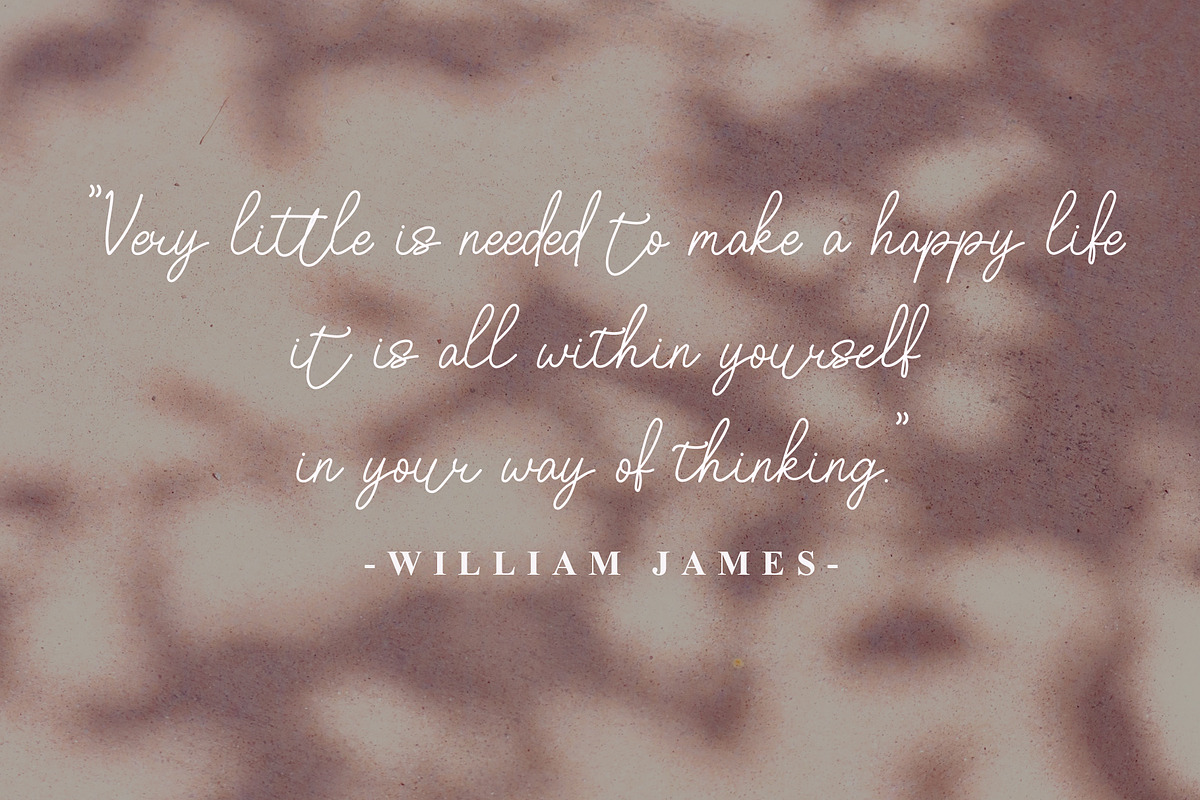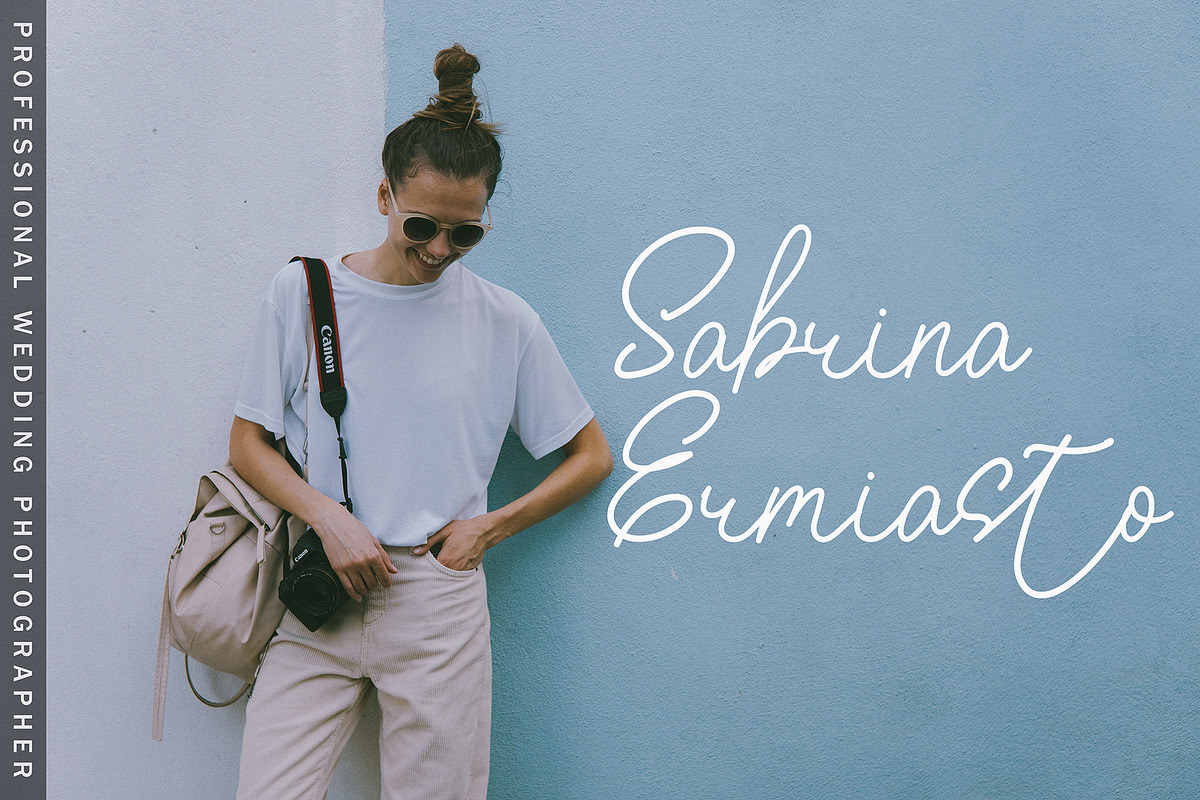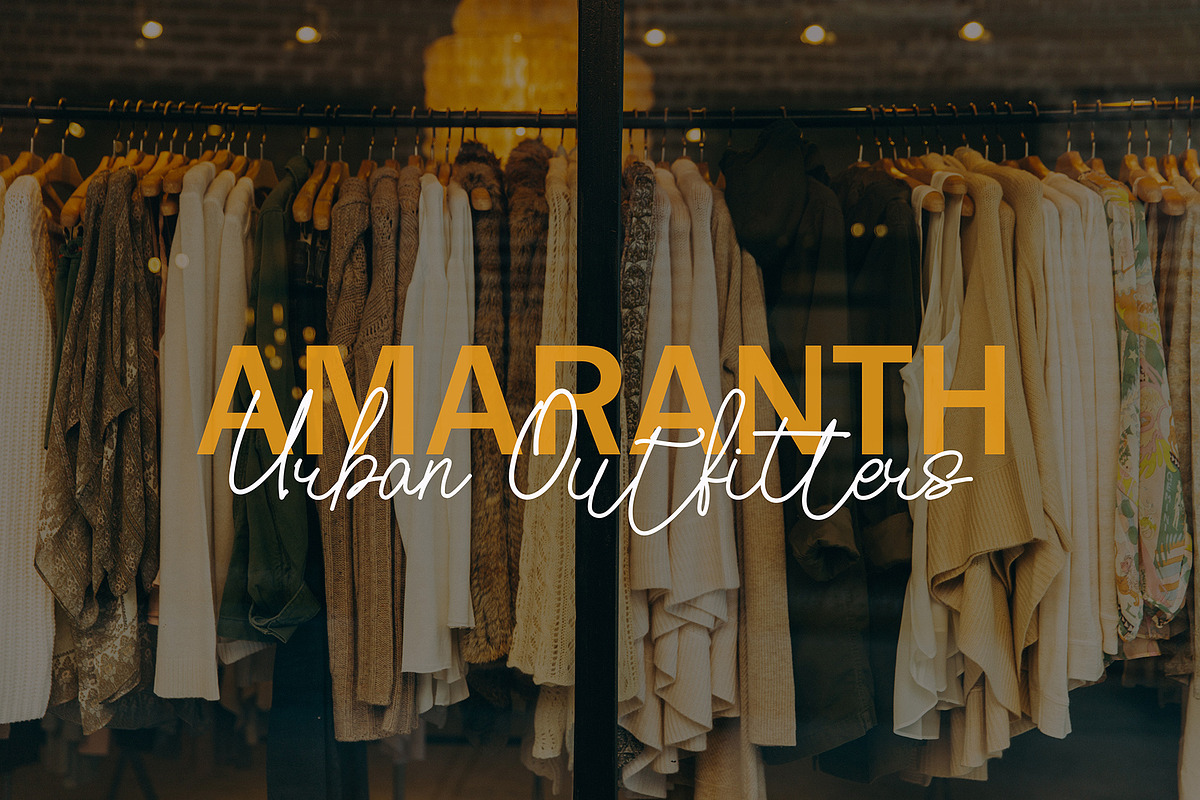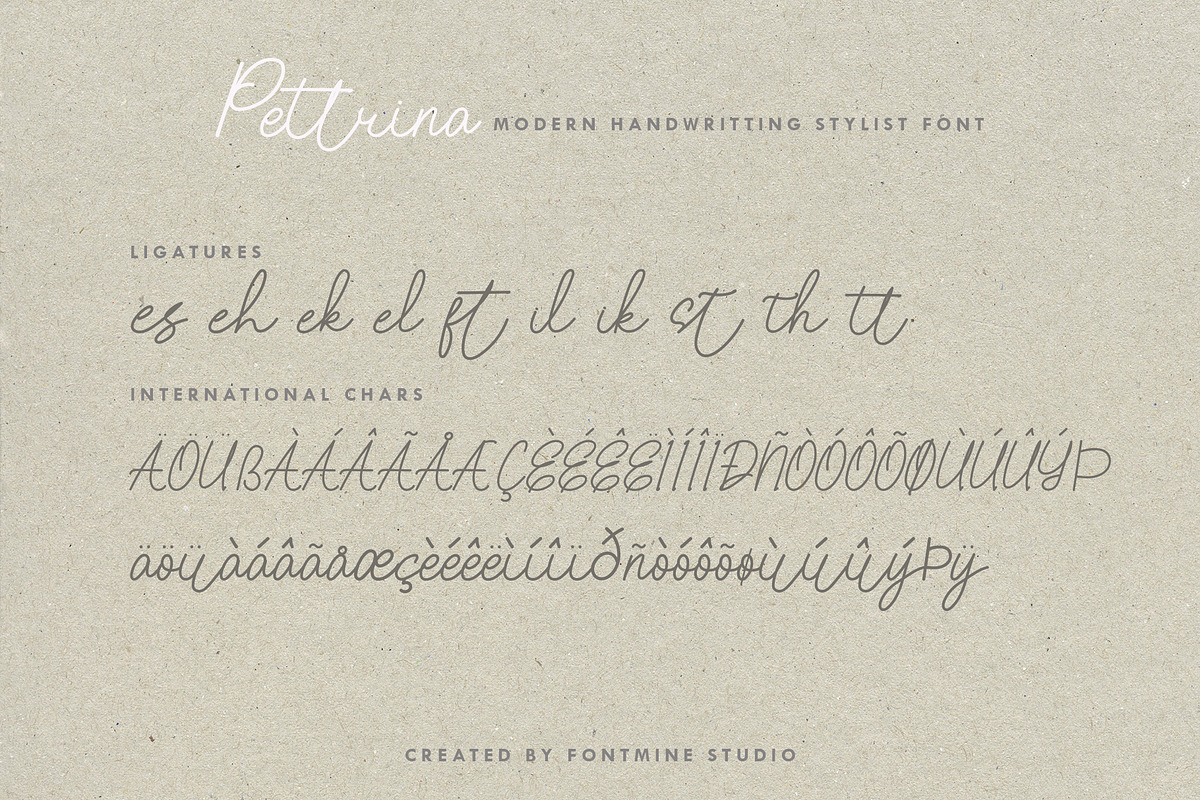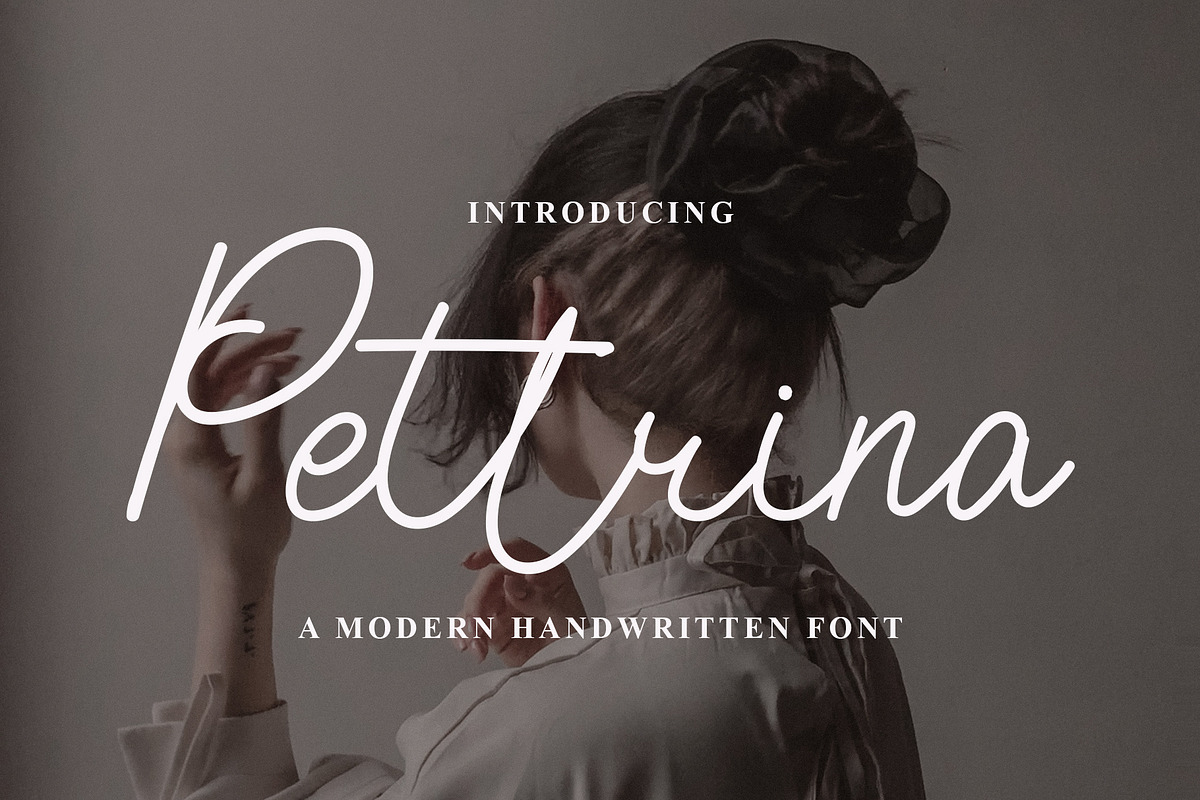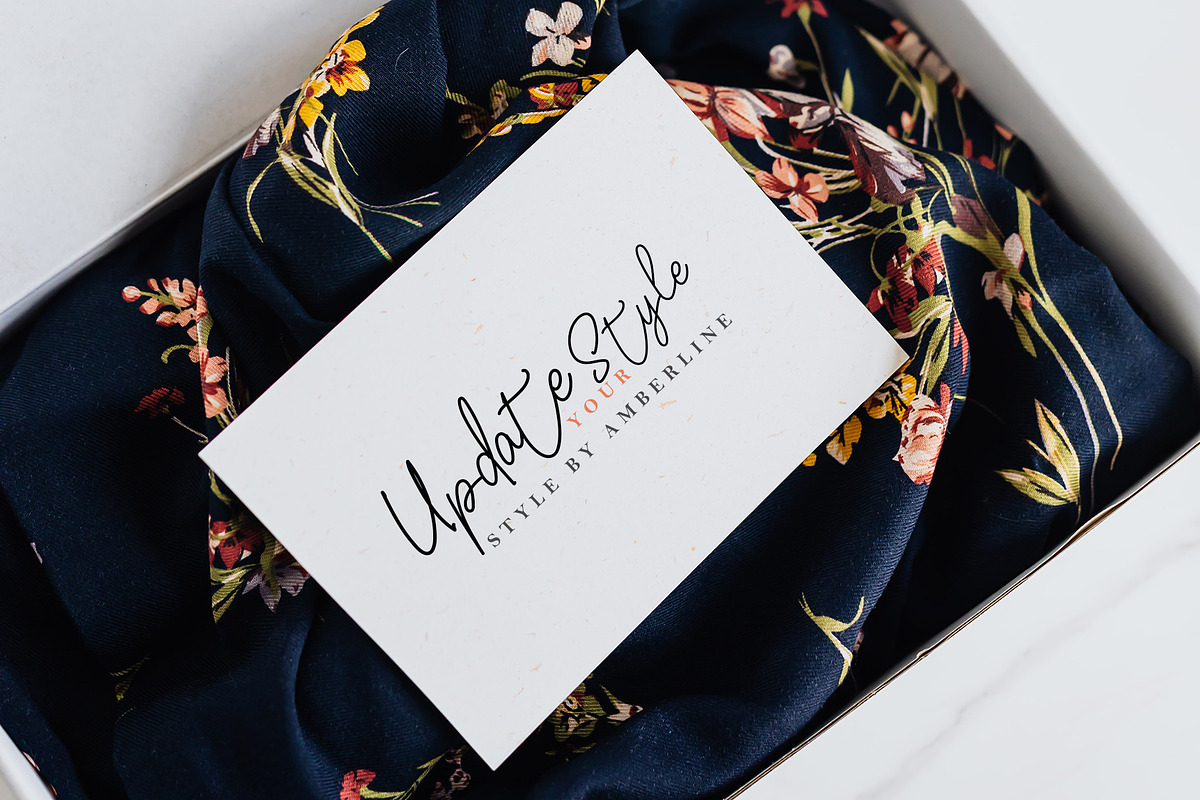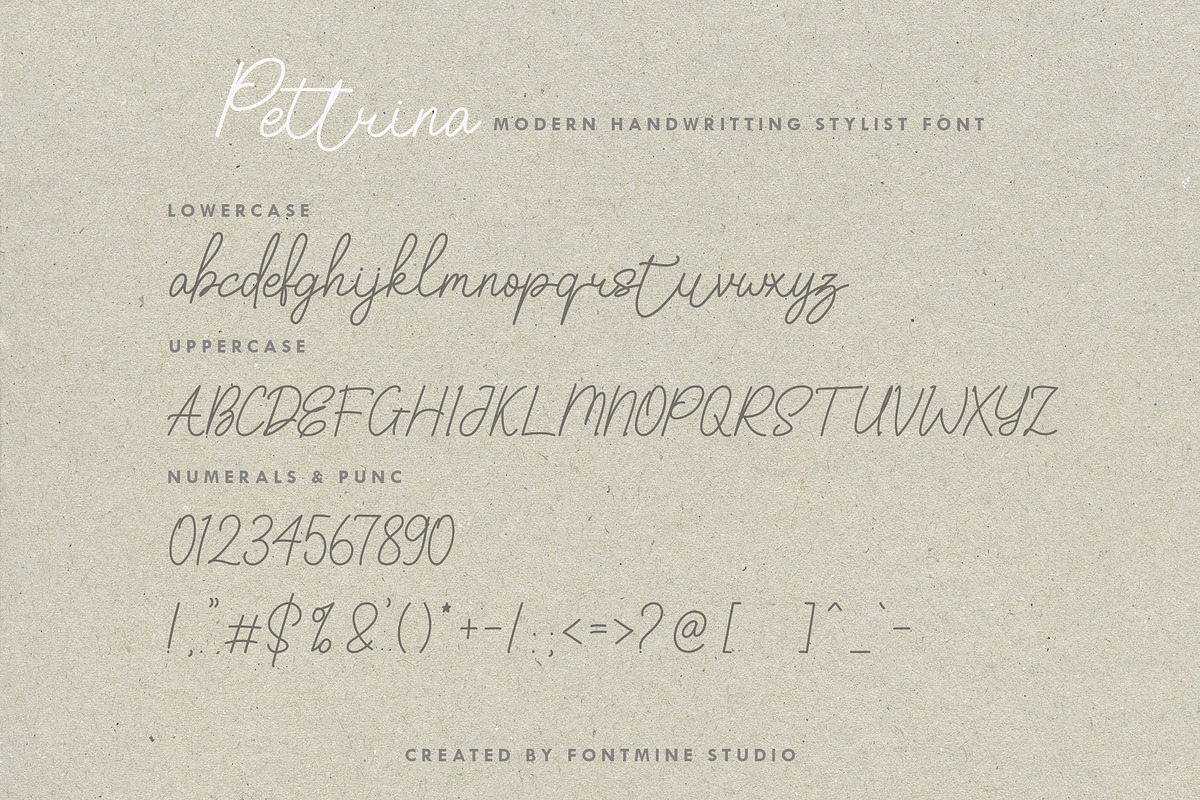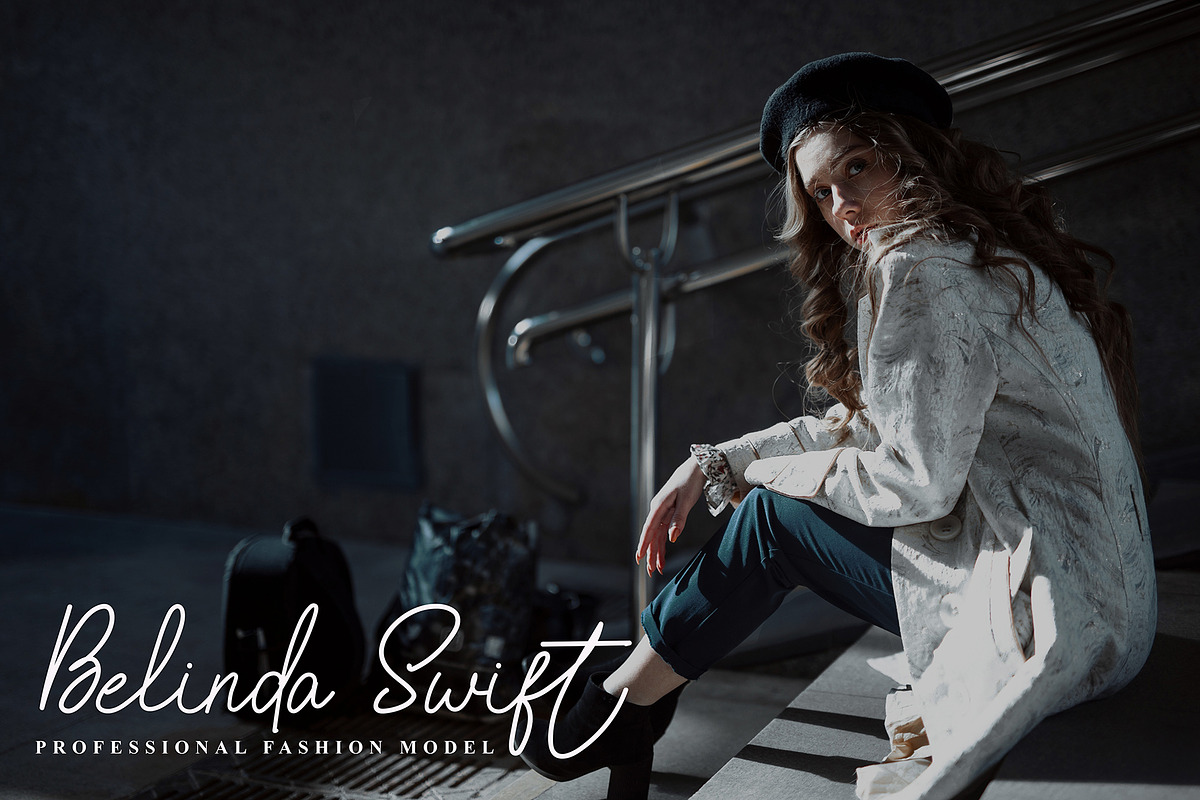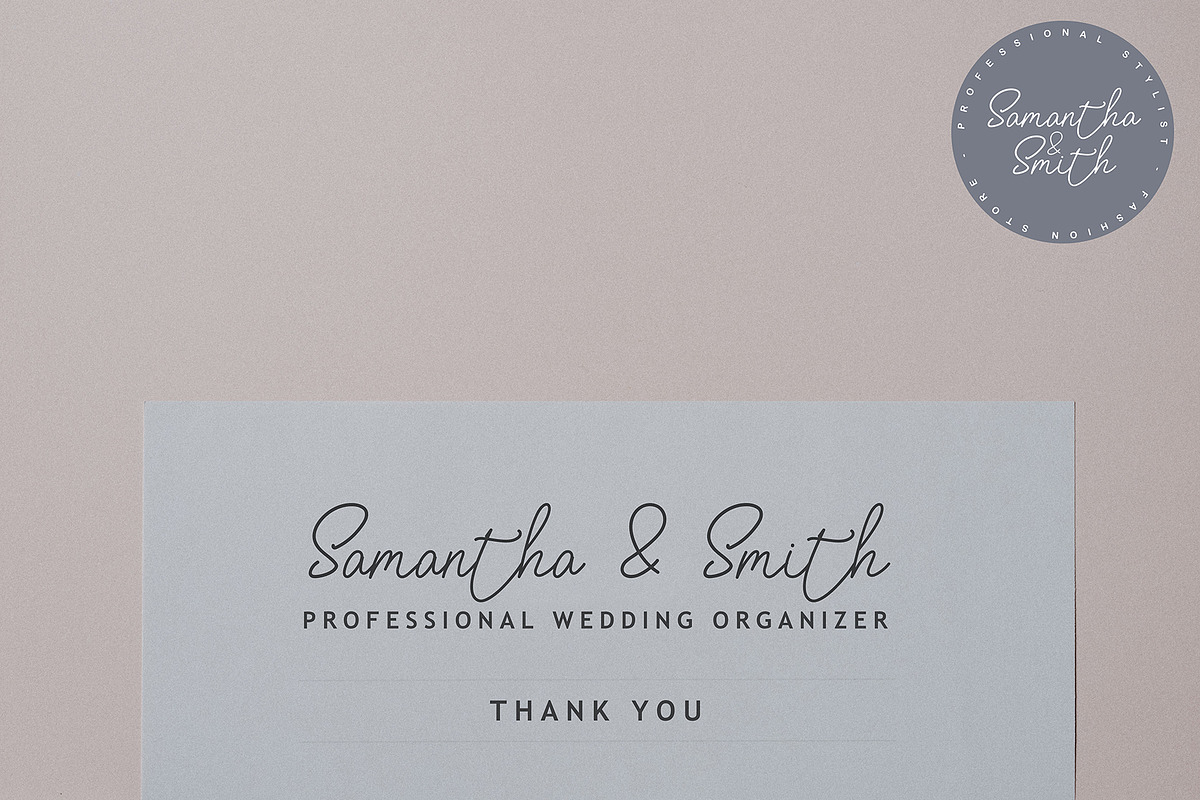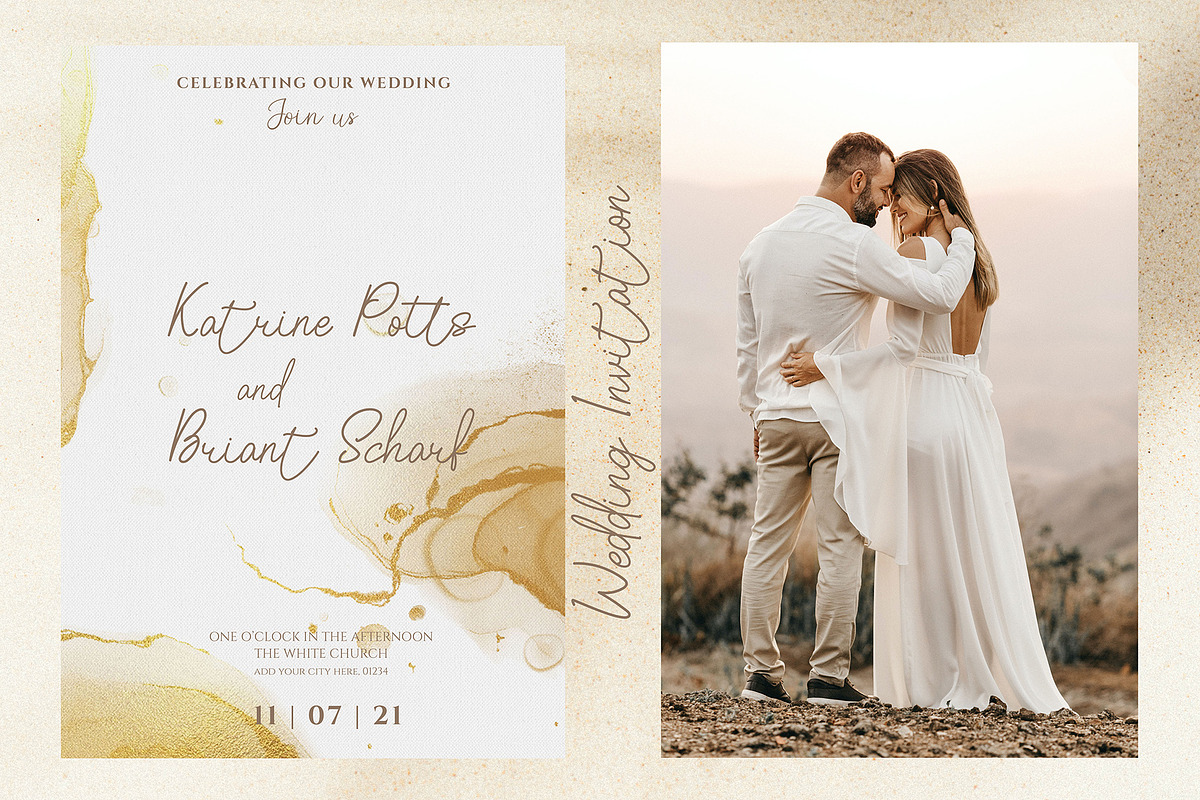
Pettrina
Pettrina is a lovely and delicate handwritting font that exudes elegance and classes. It is perfect for those who need a beautiful and graceful look to their designs. Pettrina is PUA encoded which means you can access all of the amazing glyphs and ligatures with ease. Pettrina is perfect for branding projects, logo, wedding designs, social media posts, advertisements, product packaging, product designs, label, photography, watermark, invitation, stationery and any projects that need handwriting taste.
- Ton of glyphs (include Uppercase, Lowercase, Numerals & Punctuations, Ligature)